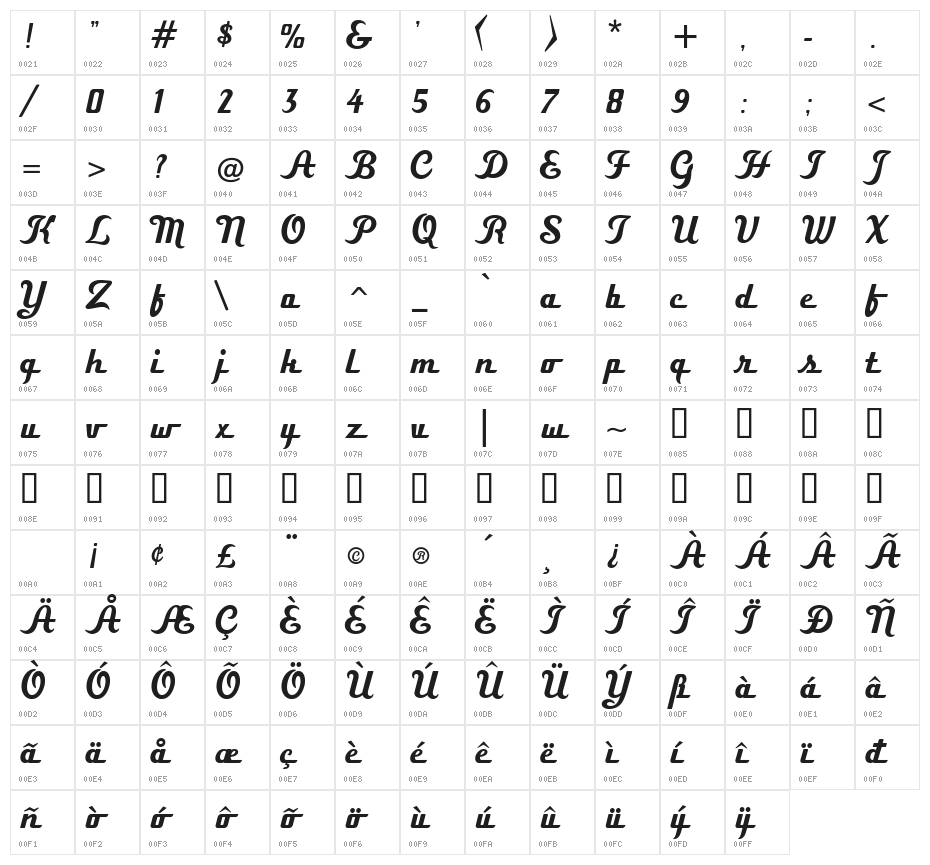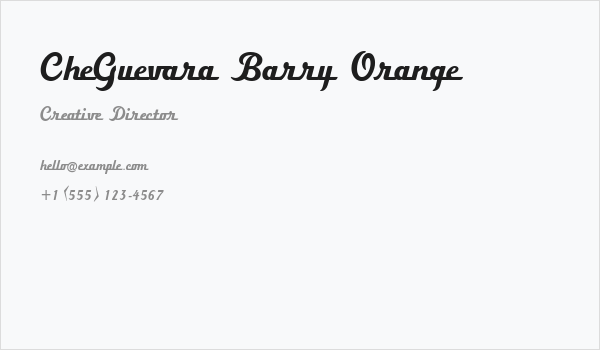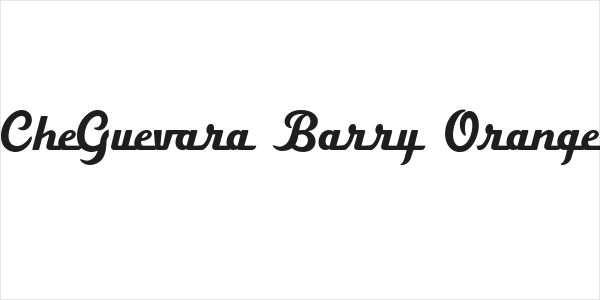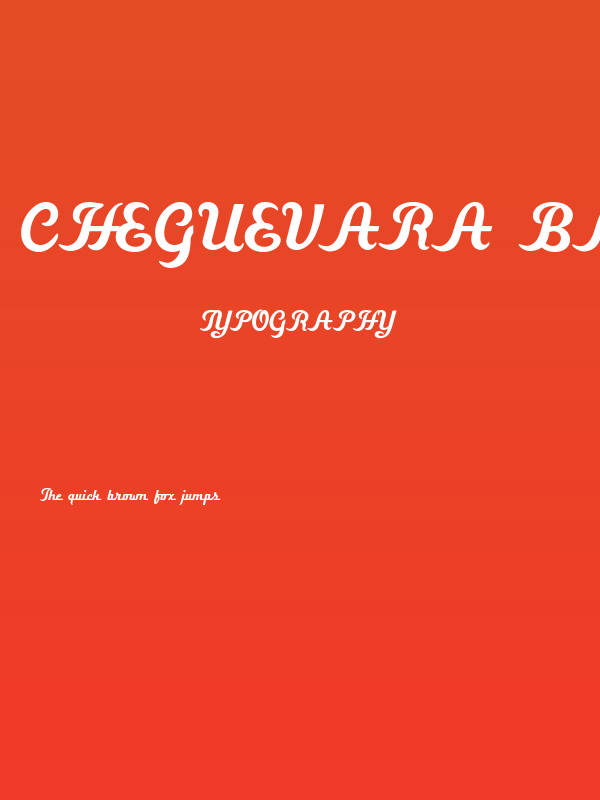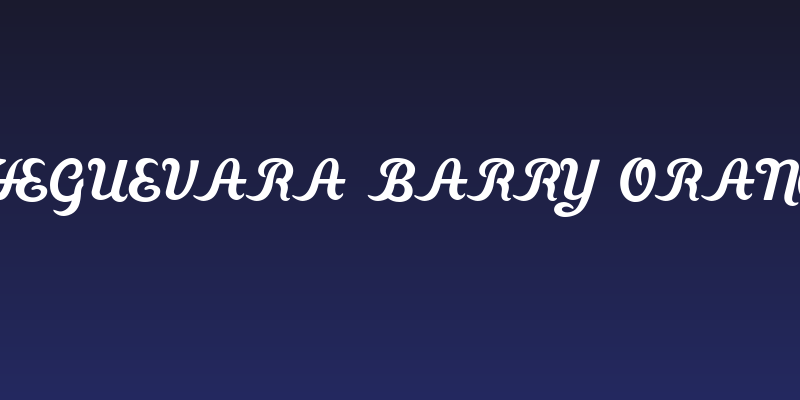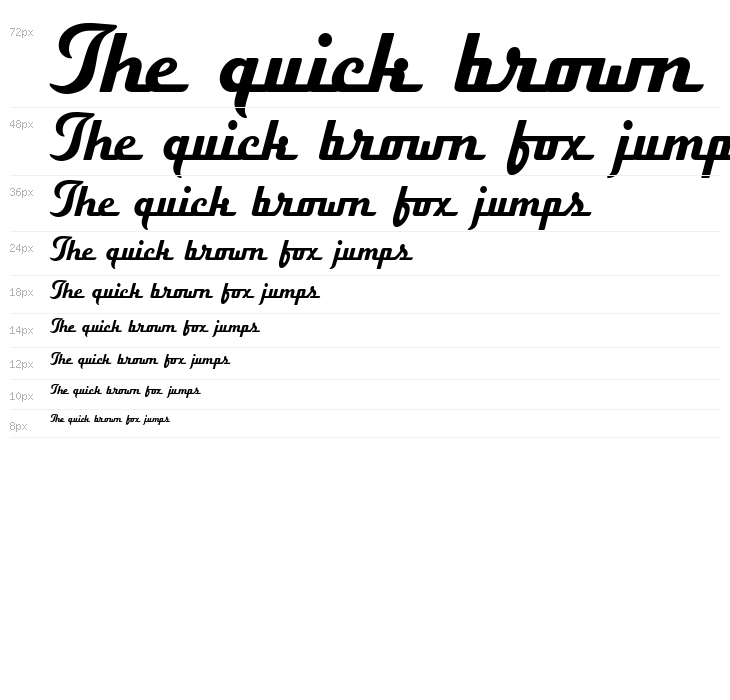
CheGuevara Barry Orange Font
CheGuevara Barry Orange Description
This font features a bold and dynamic script style with a strong presence. The uppercase letters exhibit a flowing, cursive design that maintains readability while adding a touch of elegance. The lowercase letters continue this theme with a slightly more compact form, enhancing the font's versatility. Numbers are bold and clear, ensuring legibility. Special characters are creatively integrated, maintaining the overall aesthetic. The font's design is both modern and classic, making it suitable for a variety of applications.
Use CaseHeadlines, Logos, Branding
Proposed ProjectsIdeal for branding, logos, headlines, and creative projects requiring a bold script style.